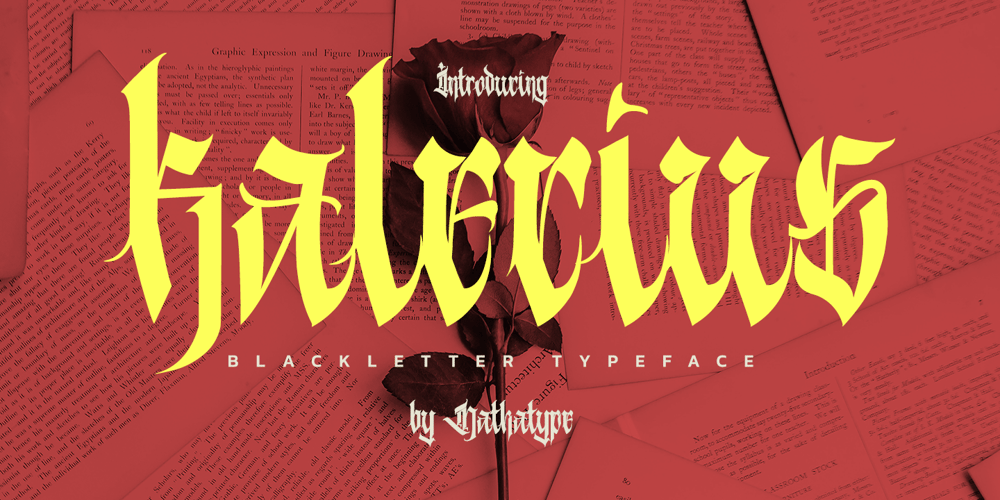
Kalecius Font Family was designed by Donis Miftahudin and published by Nathatype. Kalecius contains 1 styles and family package options. Do you dream of creating headings that stand out and inspire creativity, imagination, and endless fun? Wait no more, we will give you the best choice.Kalecius-A Blackletter FontKalecius is a blackletter font designed with a modern vibe. This beautiful runic style typeface help you bring the Soul of the North into your design works! It’s ideal font for giving your strong touch. Great for typography posters, apparel design, branding and logo, greeting cards and invitations. Our font always includes Multilingual Support to make your branding reach a global audience. Features: PUA Encoded Numerals and Punctuation Thank you for downloading premium fonts from Natha Studio